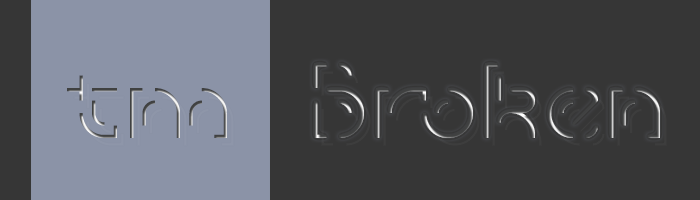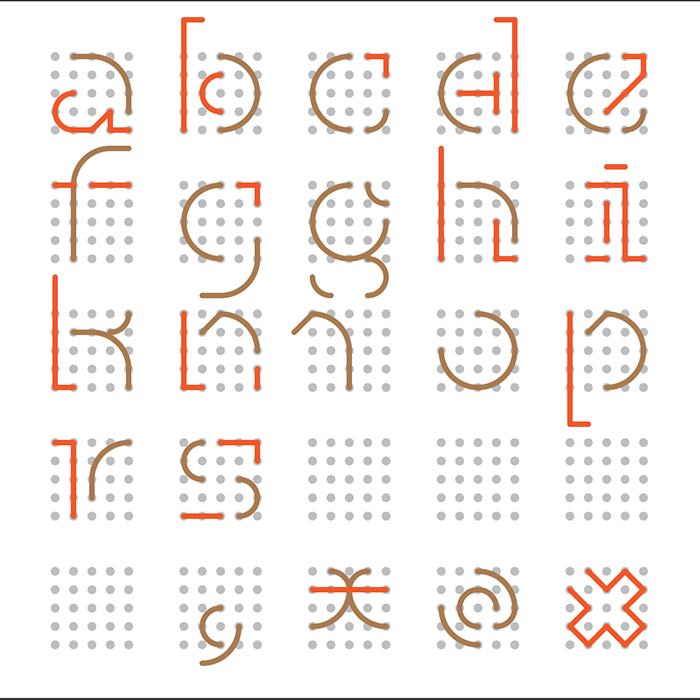
• This font started offline. It wasn't even supposed to be a font. I was just showing some students the value of a grid, even as tiny as 5×5 and the thousands of possibilities it generates. It led to making an 'a'. Of course, once that exercise was over, I had to continue making other letters. It's a compulsion. Sorry. The offline idea was slightly different. Compromises had to be made due to the limitation in place by the bricks available.
Impressive!  It actually shows a subtle, yet nice embossing effect.
Brokenly good
I wonder how you did this on a 5x5 grid?